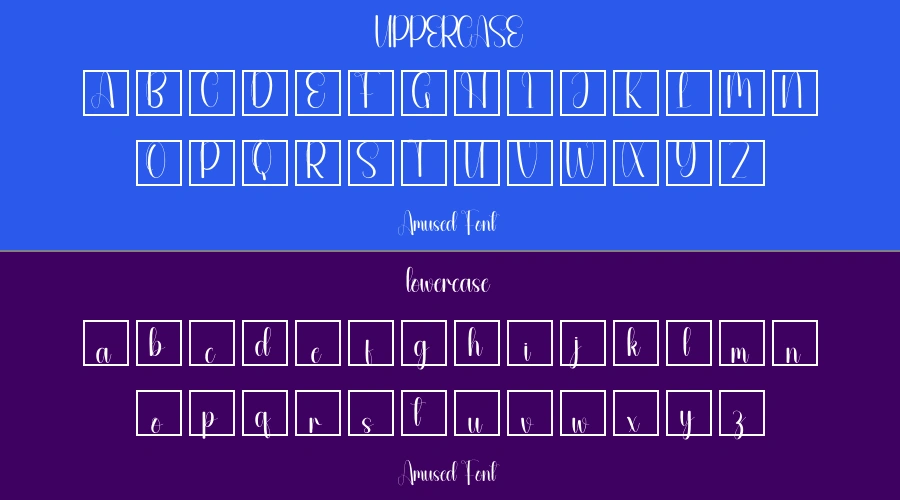
About Amused Font
Designed with precision, Amused Font merges creative flair with accuracy in every character. This versatility makes it particularly effective for poster titles, where versatility and aesthetic refinement directly impact communication quality. Each letterform demonstrates meticulous craftsmanship.
Technical excellence shines through elements like elegant curves and standard ligatures, enhancing typographic versatility. In advertisements settings, Amused Font proves its worth through superior small text clarity. The thoughtful execution of cap height ratio and institutional trust ensures professional results.